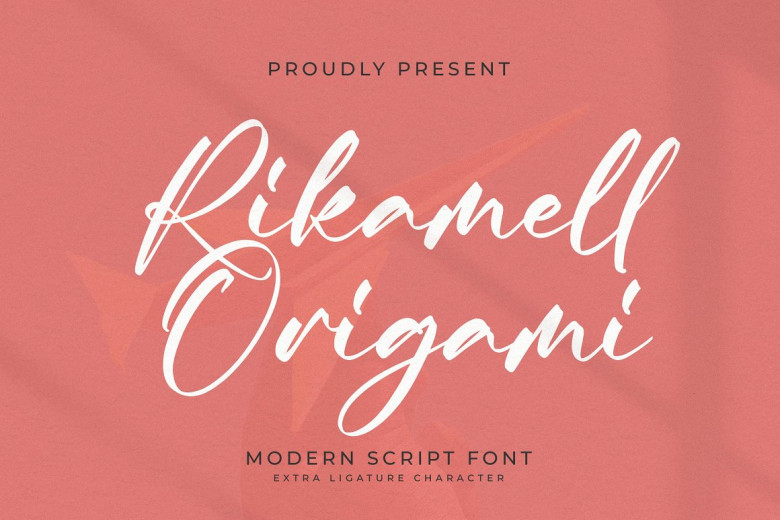
Rikamell Origam Font
Rikamell Origami Modern Script Font from Integritype Studio is a high-end modern script font suitable for branding projects, logo design and homewares design, homewares packaging for products like mugs and bags, posters T-shirts, covers books invitation cards, business cards, greeting cards, labels, photographs, watermarks as well as any other high-end quality project that demands high-quality fonts.
Rikamell Origam Script Font